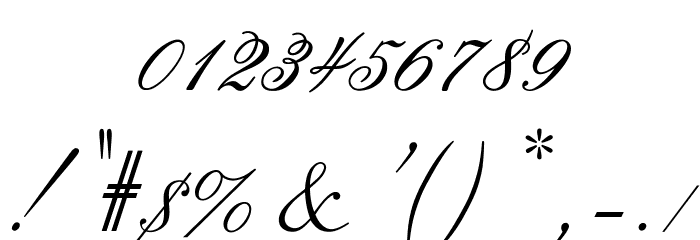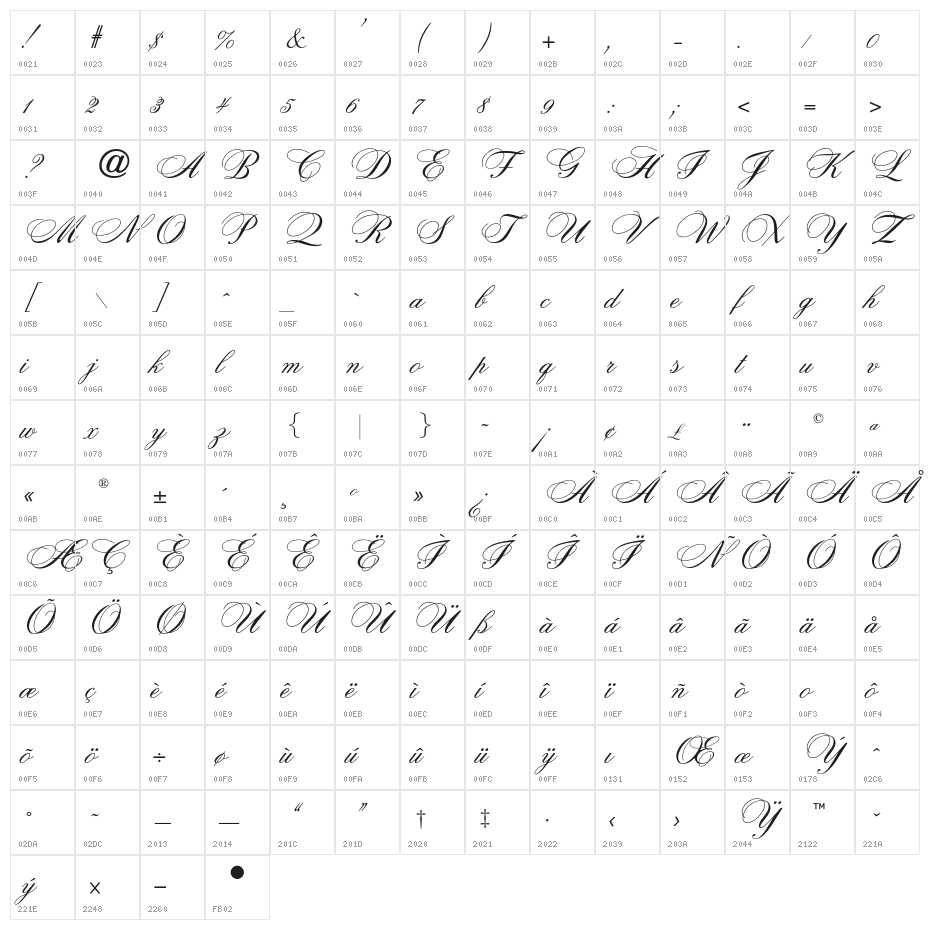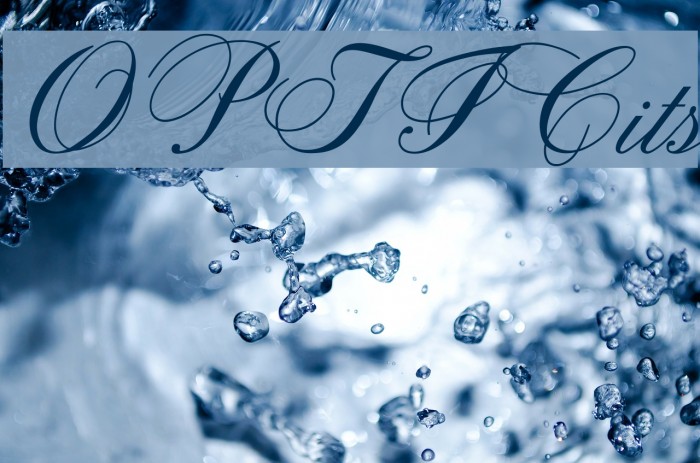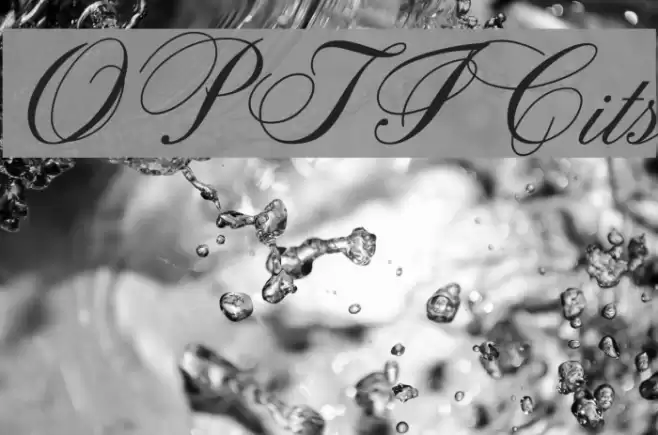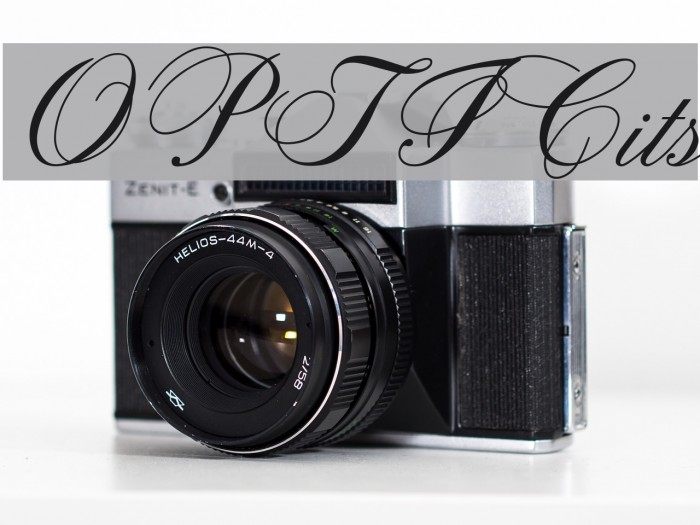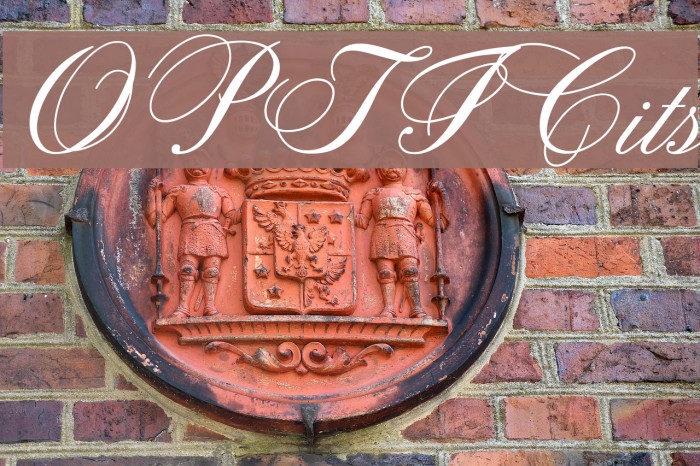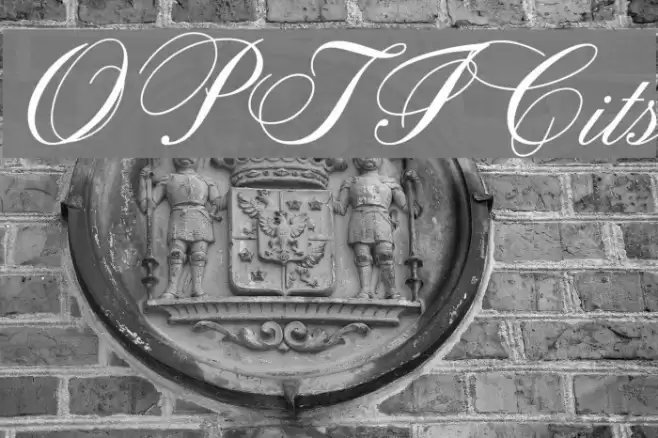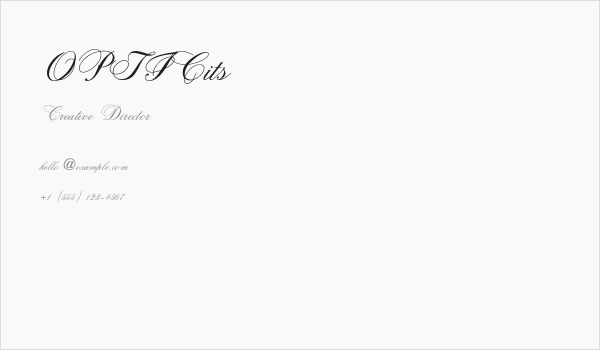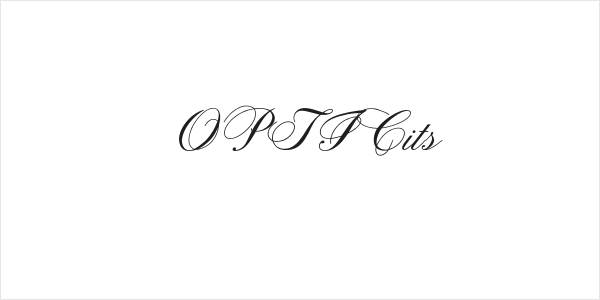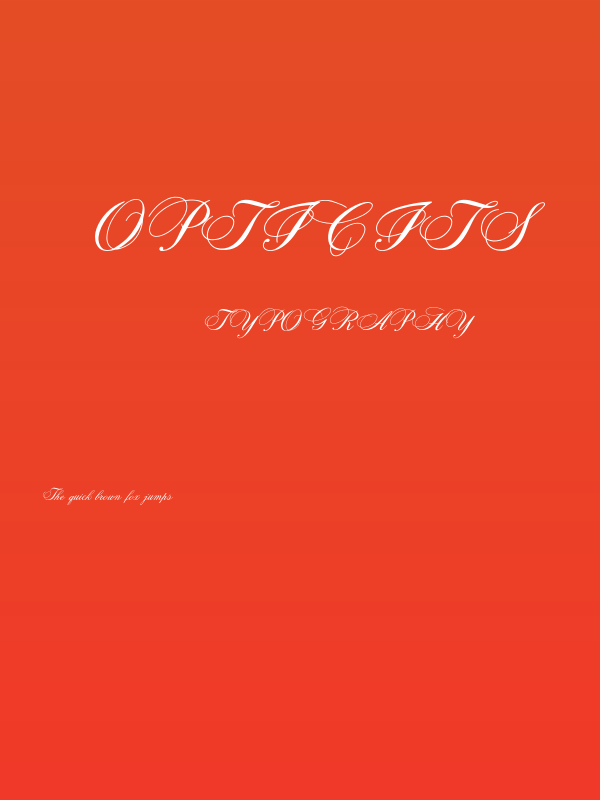
OPTICits Font
OPTICits Description
This elegant script font features a flowing, cursive style with intricate loops and swashes, giving it a sophisticated and decorative appearance. The uppercase letters are particularly ornate, with extended flourishes that add a touch of grandeur. The lowercase letters maintain a consistent slant, contributing to the font's graceful and fluid look. Numbers and special characters are designed to match the overall aesthetic, ensuring a cohesive appearance across all text elements. This font is ideal for projects that require a touch of elegance and formality, such as wedding invitations, luxury branding, or high-end product packaging.
| Proposed Projects | Wedding invitations, luxury branding, high-end product packaging, formal event programs. |